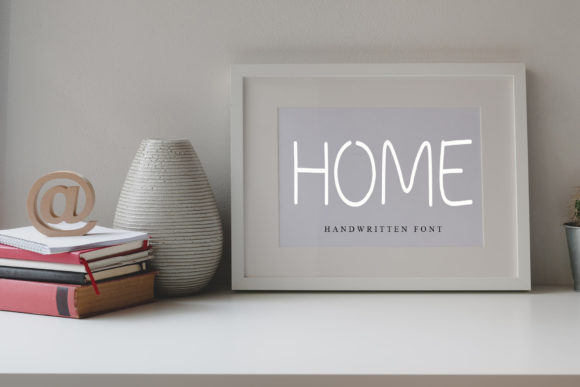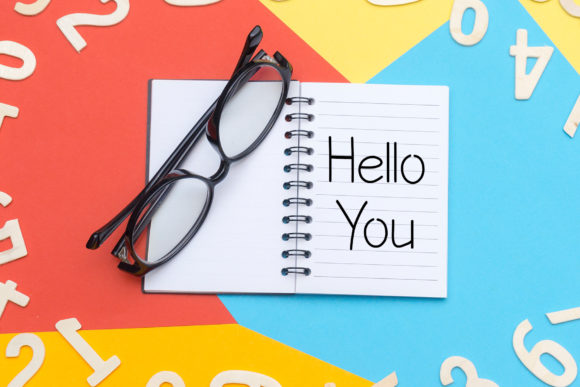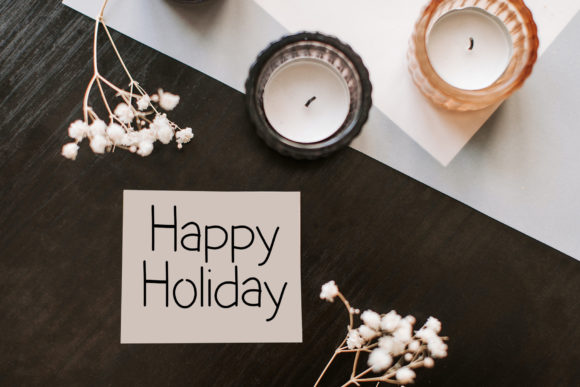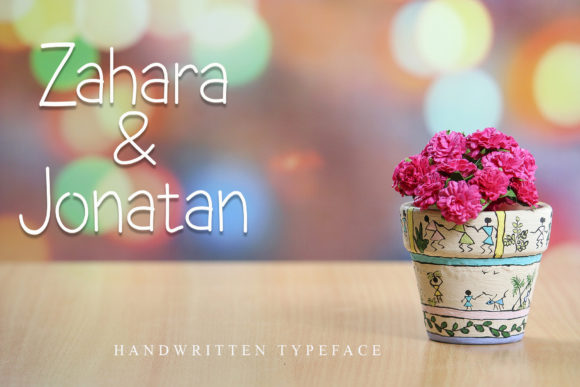
Homemade Font
About Homemade Font
Homemade is a cute handwritten font. Its sweet and full of life style makes this font a wonderful choice for brightening up your designs.